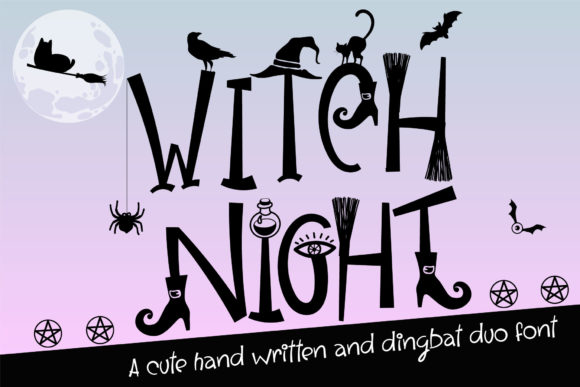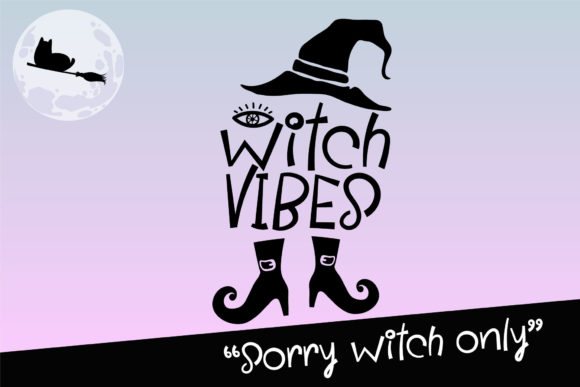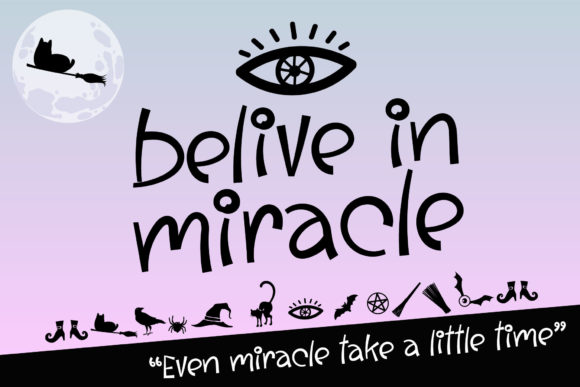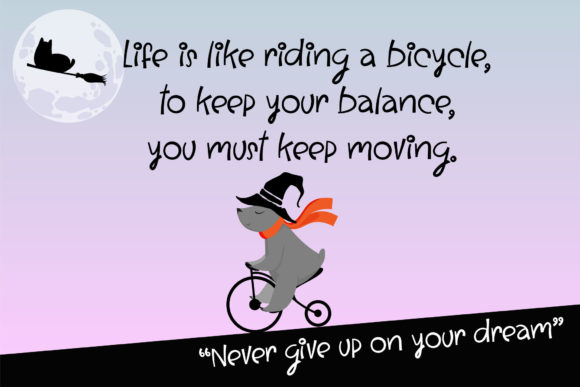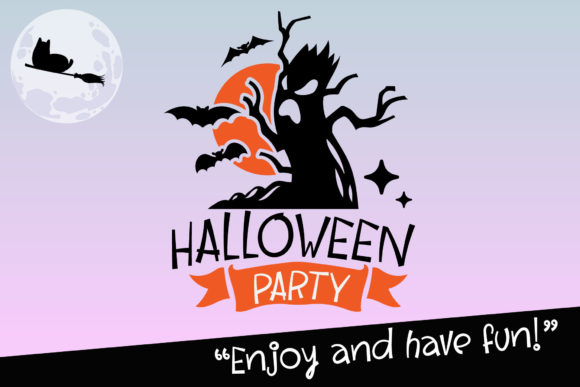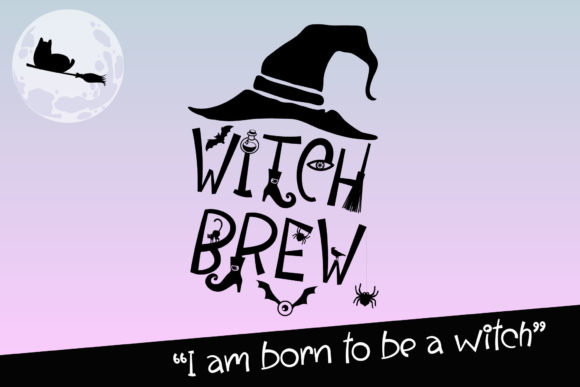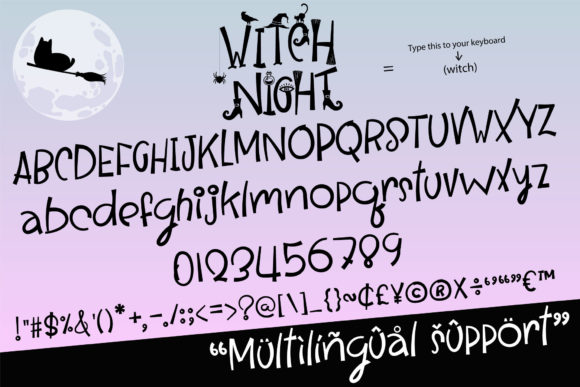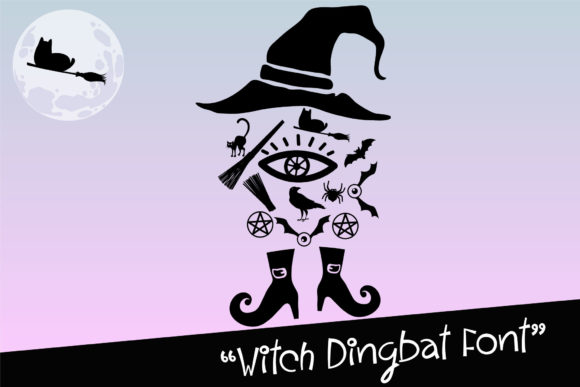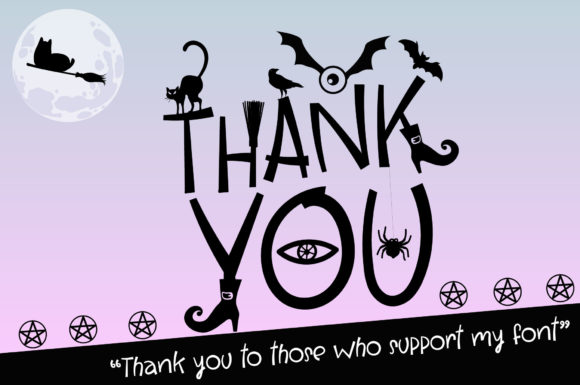
Witch Night Font
Witch Night is a cute, spooky and quirky duo font (script and dingbats). Add it to your Halloween crafts, horror movie posters, t-shirts and anything else that requires a spectacular look.